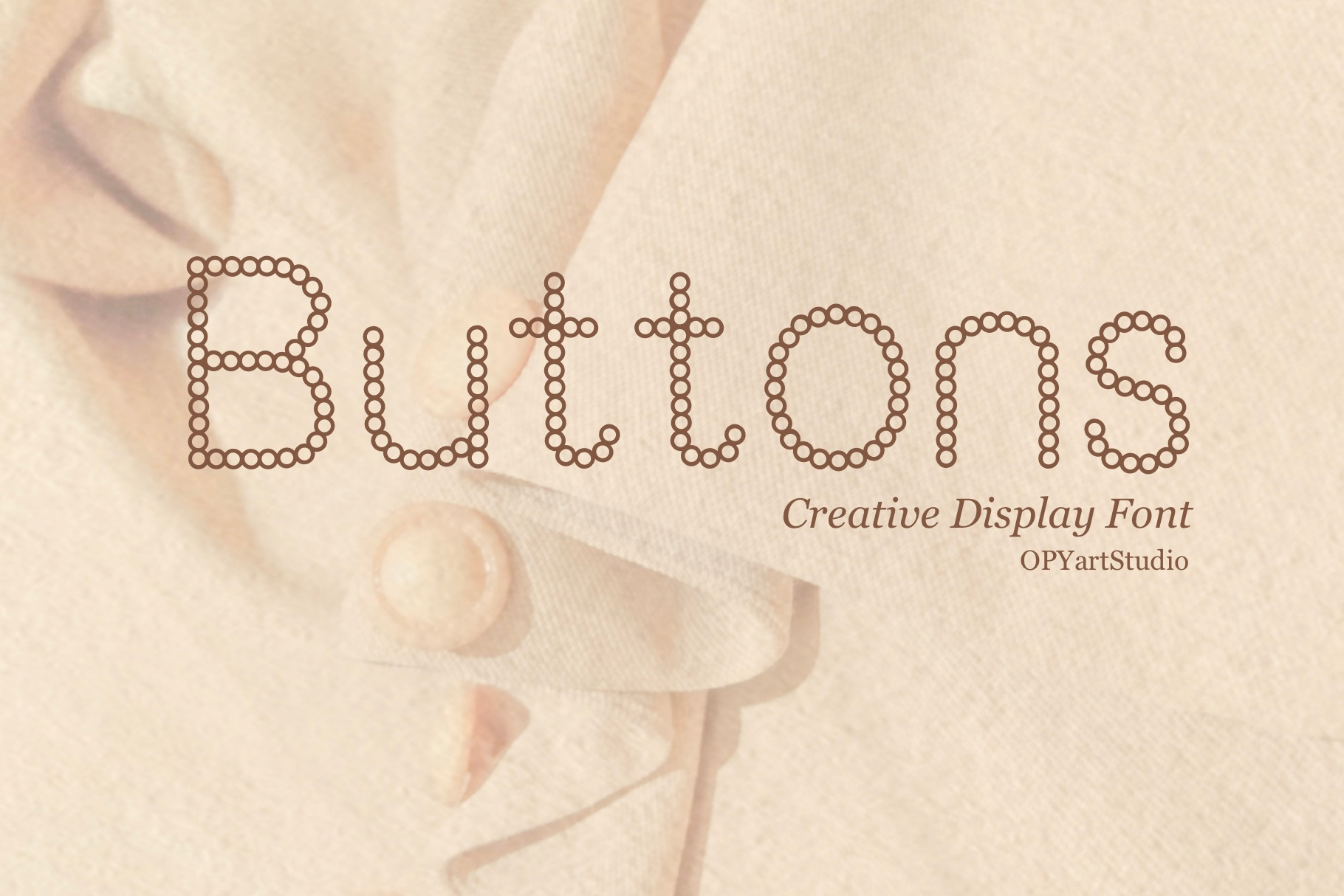
Buttons - Creative Display Font
Introducing "Buttons", a font with a neat and delicate look that is truly one-of-a-kind. The design of this font is inspired by rows of buttons and sometimes looks like embroidery sewing lines, giving it a unique and creative character. Starting with geometric shapes, this font is creatively put together to achieve its distinctive look.
The font is perfect for display purposes and can be used to create unique designs, posters, and presentations. Its creative expression is unparalleled, making it a must-have for any designer or artist looking to add a touch of creativity and originality to their projects. I can't wait to see how it will be used in the future.